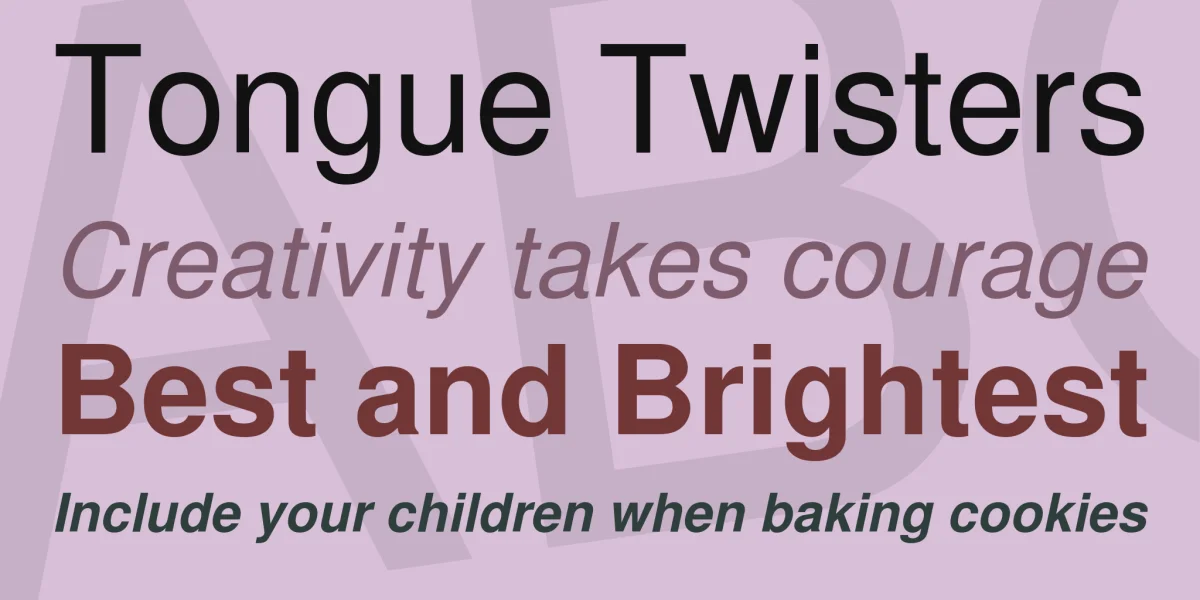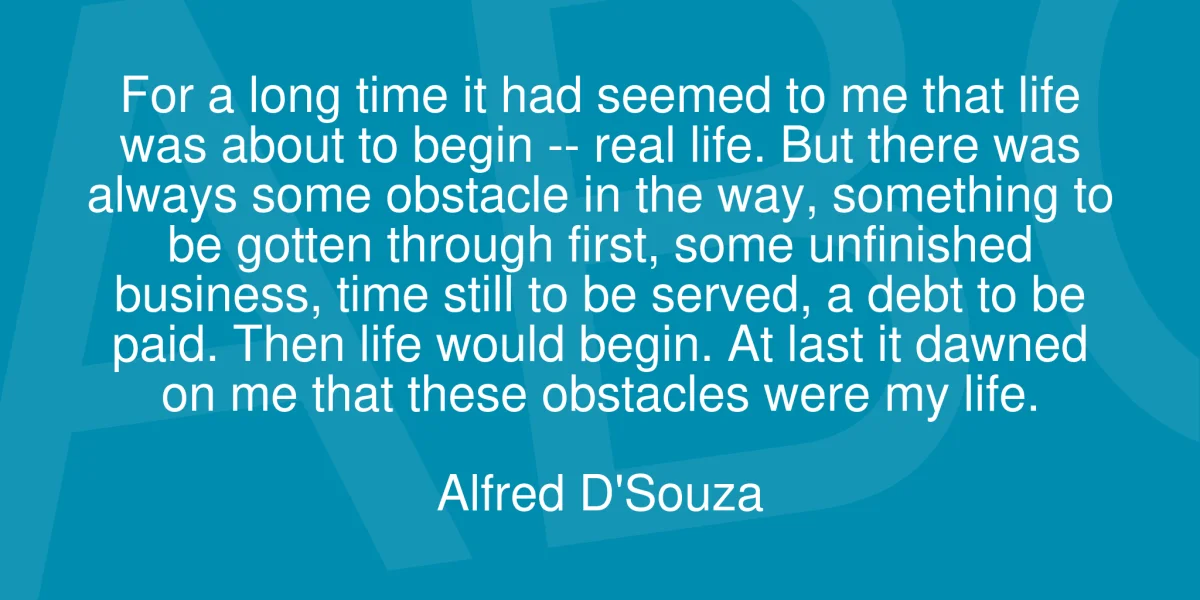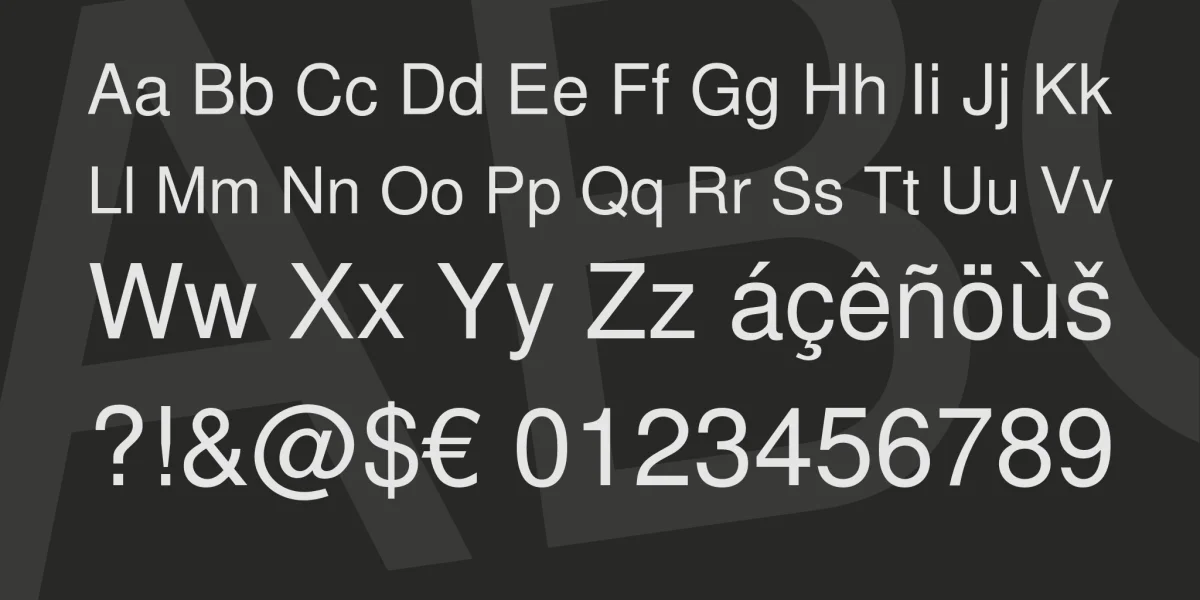
Nimbus Sans L is a version of Nimbus Sans using Adobe font sources. It was designed in 1987. The family includes 17 fonts in 5 weights and 2 widths, with Nimbus Sans L Extra Black only available in condensed roman format.
Although the characters are not exactly the same, Nimbus Sans L has metrics almost identical to Helvetica and Arial. Nimbus Sans L is one of the Ghostscript fonts, a set of free alternatives to the 35 basic PostScript fonts (which include Helvetica).
It is a standard typeface in many GNU/Linux distributions. It was used as default font in OpenOffice.org Calc and Impress in some GNU/Linux distributions (e.g. Ubuntu - up to version 8.10; since Ubuntu 9.04 the default font was changed to Liberation Sans).